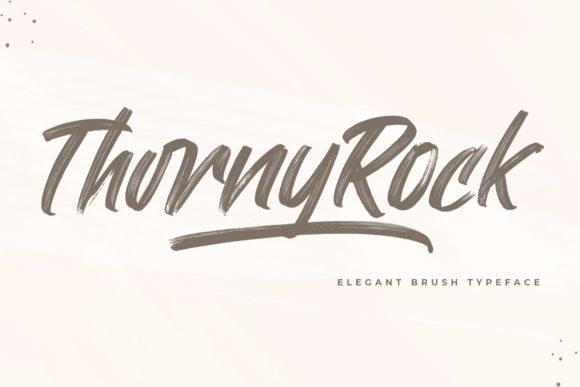
Unleash your inner designer and leave a lasting impression with Thorny Rock, a captivating brush script font that exudes elegance and style. This masterpiece by fontkong is not just a font; it's a statement. Thorny Rock's simple yet striking visuals elevate your creations beyond the ordinary.
Immerse yourself in a world of sophistication and creativity as Thorny Rock transforms your business reports, marketing materials, and social media posts into works of art. Its bold strokes and sweeping curves add a touch of intrigue and professionalism, making your content stand out from the rest.
Thorny Rock is not merely a font; it's an experience. Its versatility knows no bounds, adapting seamlessly to a myriad of projects. Enchant your wedding invitations with a touch of romance, give your branding a modern edge, or create social media posts that captivate your audience. The possibilities are endless, and the results are always stunning.
With Thorny Rock, you hold the key to unlocking your creative potential. Embrace the power of this font and watch as your vision comes to life. Your designs will radiate confidence, your words will resonate with authenticity, and your message will leave an unforgettable impact.
So, embark on a journey of creativity with Thorny Rock and ignite your passion for design. Let your imagination run wild as you craft masterpieces that turn heads and leave a lasting legacy. The time is now to make your mark on the world, one stunning creation at a time.